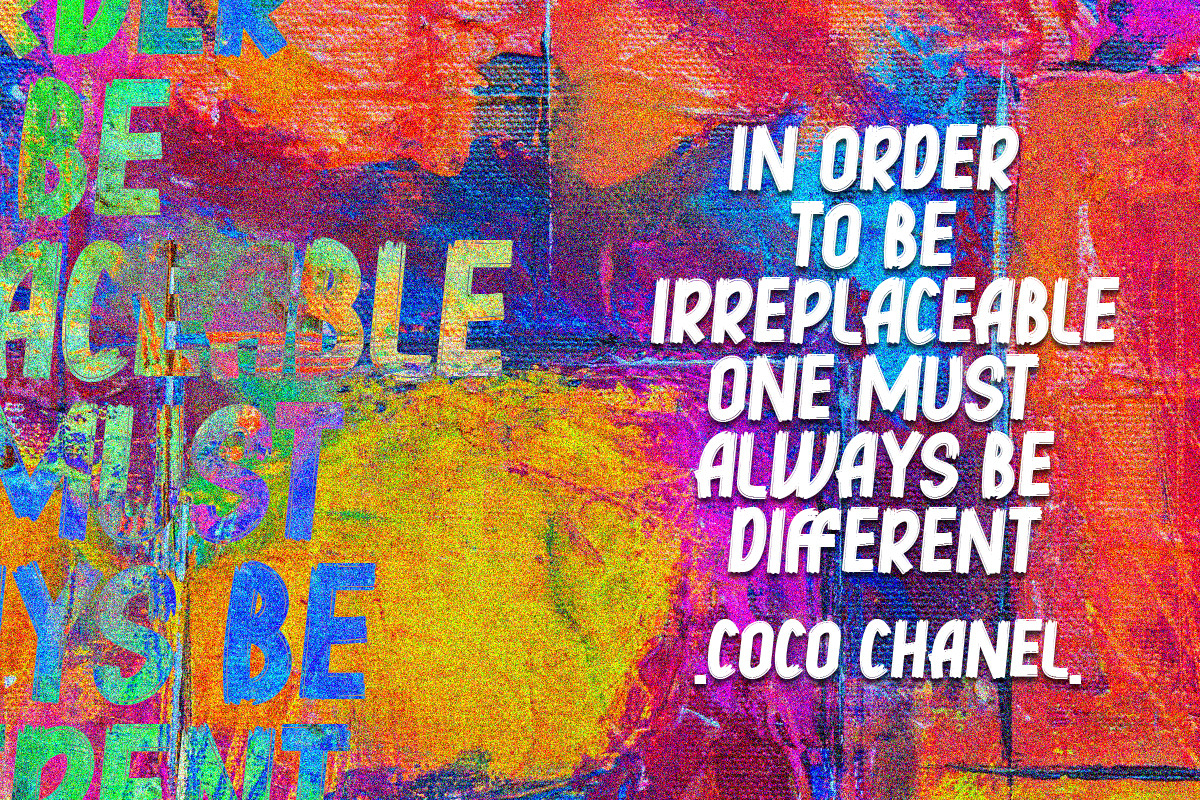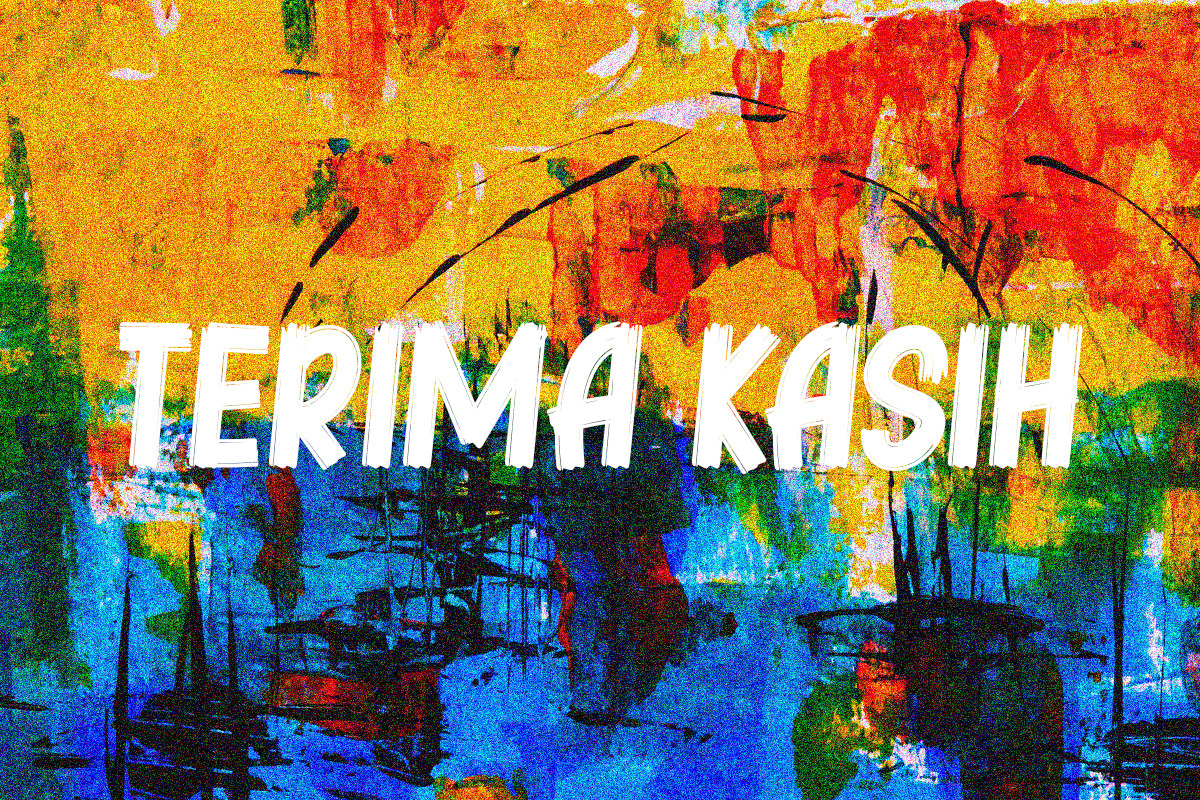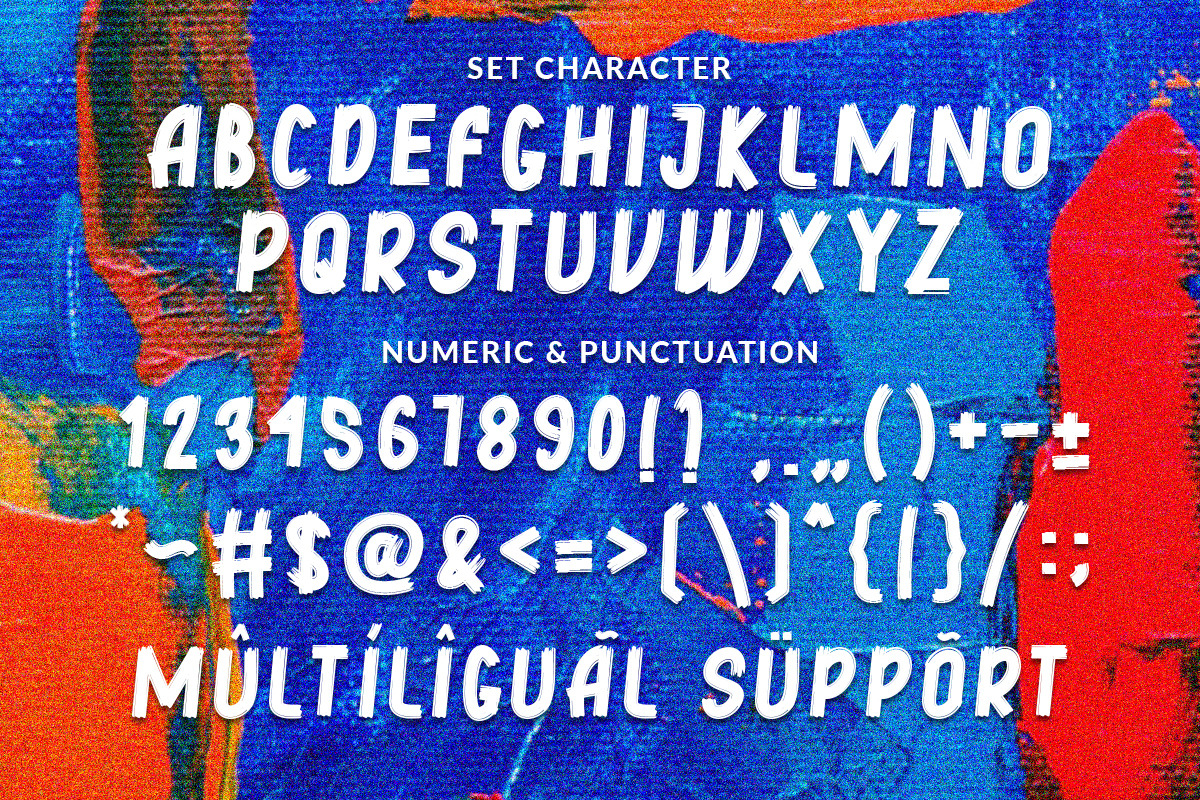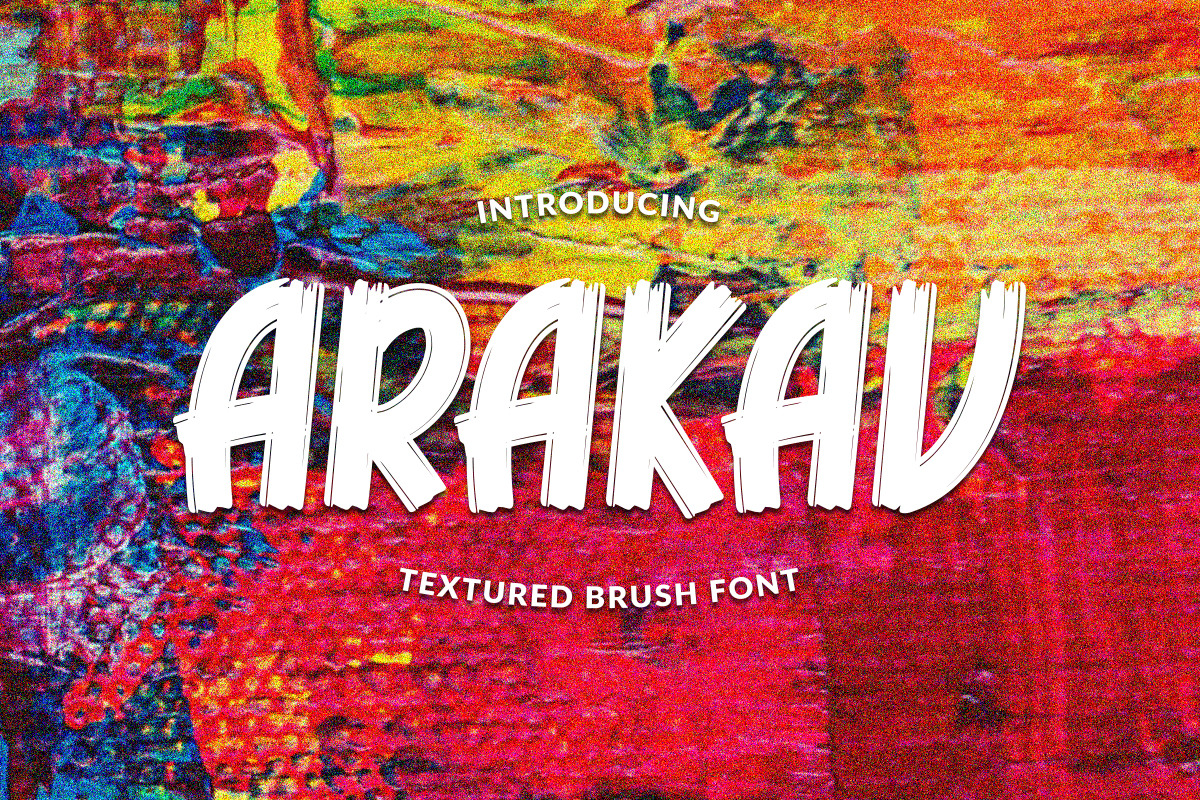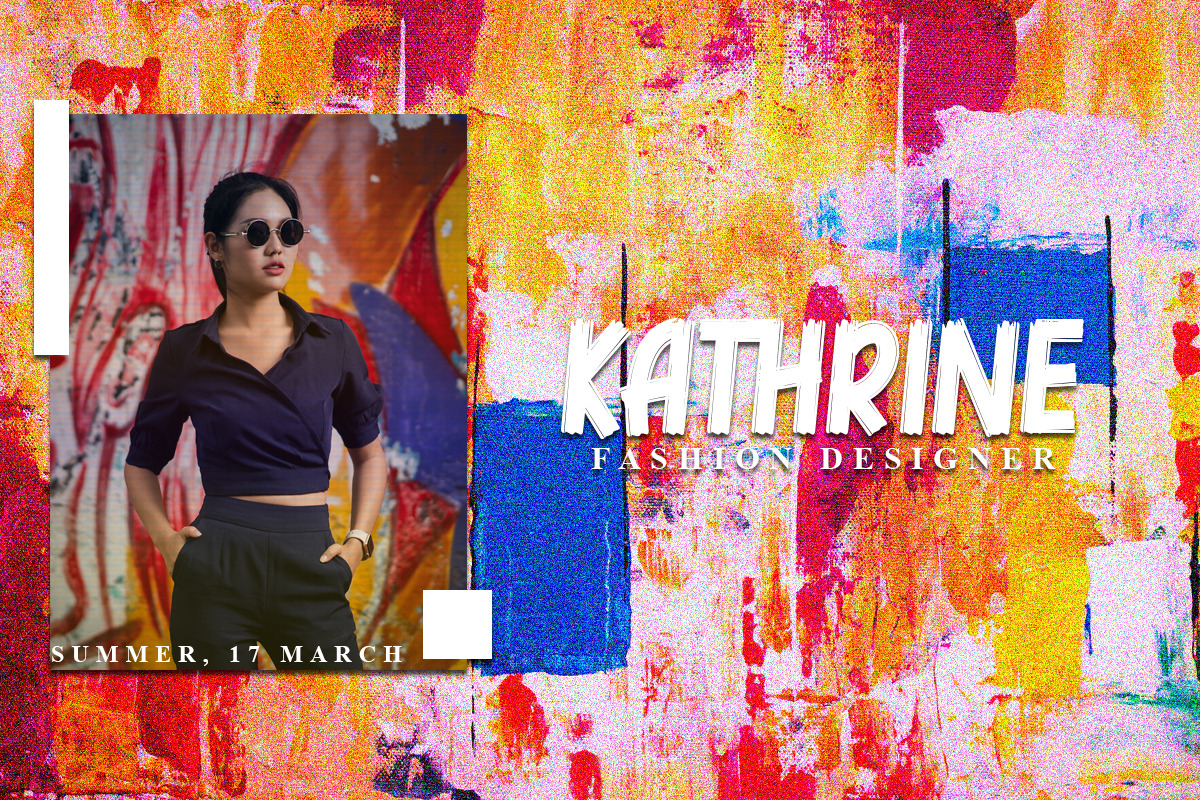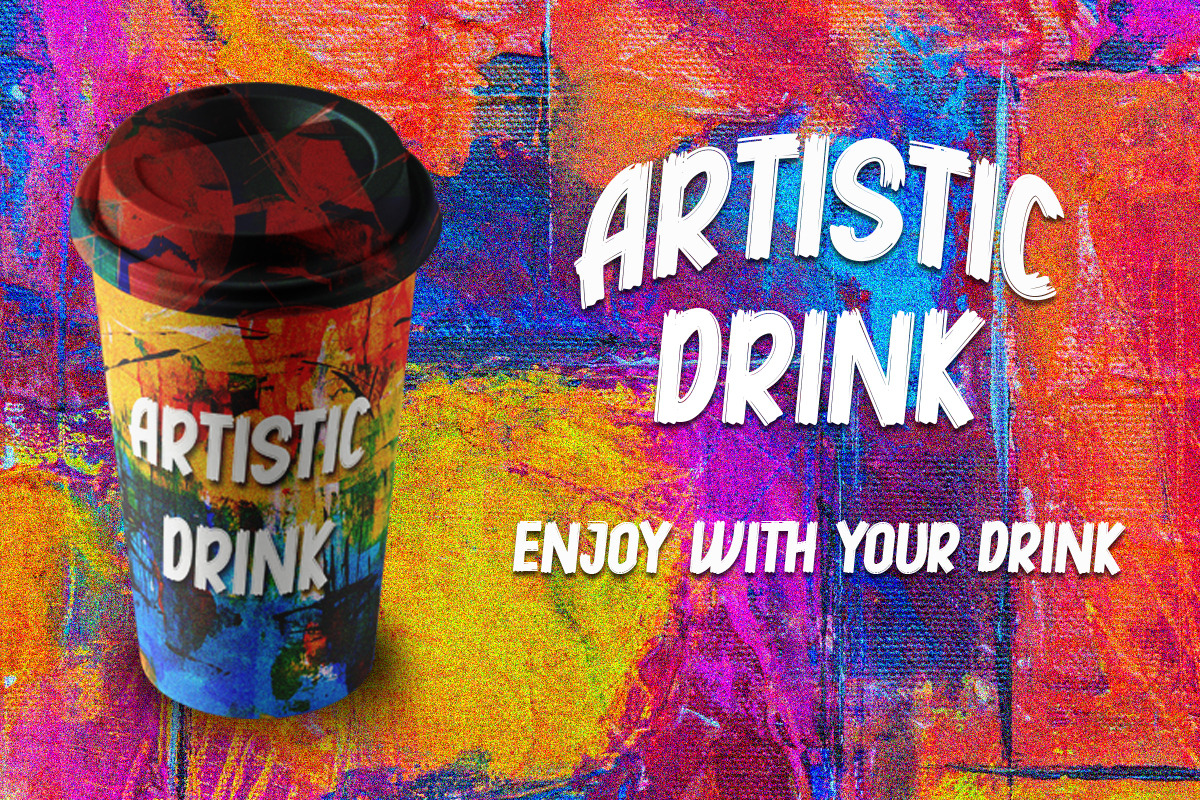
ARAKAV | TEXTURED BRUSH FONT
Hello everyone ...... this is a ARAKAv font made with a square line and an exact curve between one and the other, this font is perfect for branding, headings, signatures, logos, blogs, wedding invitations, t-shirts, letterheads, merchandise, signage, labels, news, posters, badges, etc. HILDANE also includes multilingual, numbers, alternatives, punctuation.